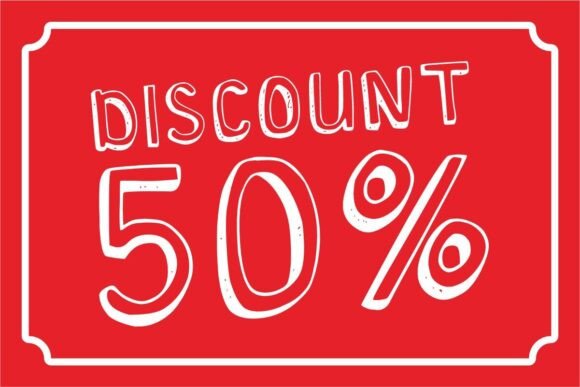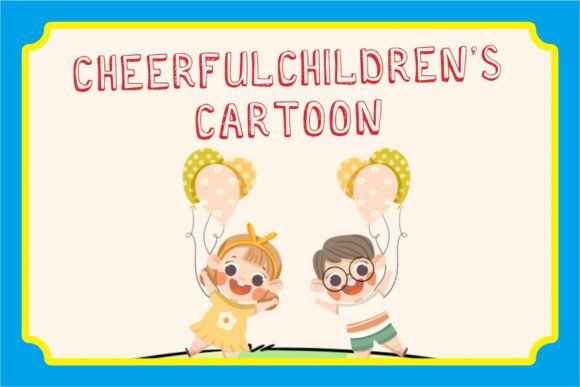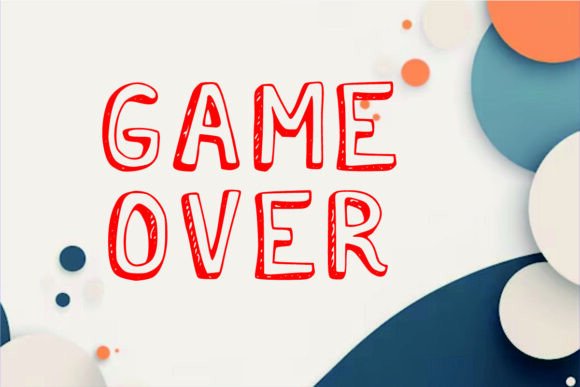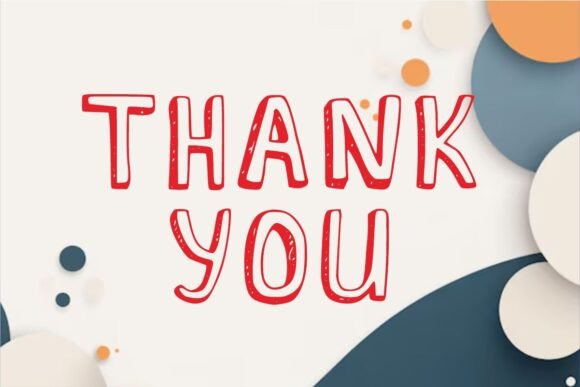
Introduction to Robinson Font
As a designer, have you ever found yourself stuck in a creative rut, yearning for a spark to ignite your imagination? I recall a moment when I stumbled upon the perfect font – the “Robinson Font” – and my entire project transformed overnight. Its whimsical bubble letters and charming scribble effect added a playful touch that elevated my design from ordinary to extraordinary.
The “Robinson Font” is more than just a design element; it’s a treasure trove of creative possibilities. With its high-quality, free download, and transparent background, this versatile font is a valuable resource for designers seeking to add a unique twist to their projects. Whether you’re working on a children’s book, party favors, posters, or greeting cards, the “Robinson Font” is sure to captivate your audience and leave a lasting impression.
As a design resource, the “Robinson Font” is an essential tool for any creative project. Its ability to add a pop of color and excitement makes it a must-have for designers looking to make their designs stand out in a crowded market.
Key Features of Robinson Font
- High-quality design: The Robinson Font is a unique and stylish font, perfect for creative projects that require a touch of elegance and sophistication.
- Transparent background: The Robinson Font features a transparent background, allowing for easy integration with any design element.
- High-resolution design: The Robinson Font is designed at 300 DPI, making it ideal for print and digital applications where high-quality visuals are essential.
- Unique characteristics: The font’s distinctive style and flair make it a standout choice for designers looking to add a touch of personality to their creative projects.
- Design resource: The Robinson Font is a valuable addition to any designer’s toolkit, offering a versatile and stylish solution for a variety of design applications.
Honest Review: Robinson Font
I recently came across the Robinson Font, and I must say it’s a great addition to any design resource library. This high quality font is perfect for creative projects that require a unique and elegant touch.
- ✨ Clear and transparent background: The font’s transparent background makes it easy to layer and combine with other design elements.
- ✨ Versatile: The Robinson Font is suitable for a wide range of creative projects, from branding and logos to digital and print media.
- ⚠️ Limited character set: While the font is well-designed, its character set is limited, which may be a drawback for designers who require a full-featured font.
- ⚠️ Not suitable for large-scale use: Due to its unique design, the Robinson Font may not be suitable for large-scale use, such as body text or lengthy paragraphs.
Overall, I’m impressed with the Robinson Font’s unique design and ease of use. While it may have some limitations, it’s a valuable addition to any design resource library, and I’d highly recommend it for creative projects that require a touch of elegance and sophistication.
Tips for Getting the Most Out of Robinson Font
To get the most out of the Robinson Font, use it in conjunction with a transparent background to create a clean and modern design. Experiment with different font sizes and styles to add visual interest to your project.
The Robinson Font is commonly used in creative projects such as graphic design, digital art, and web design. It’s also a popular choice for presentations and documents due to its high quality and versatility.